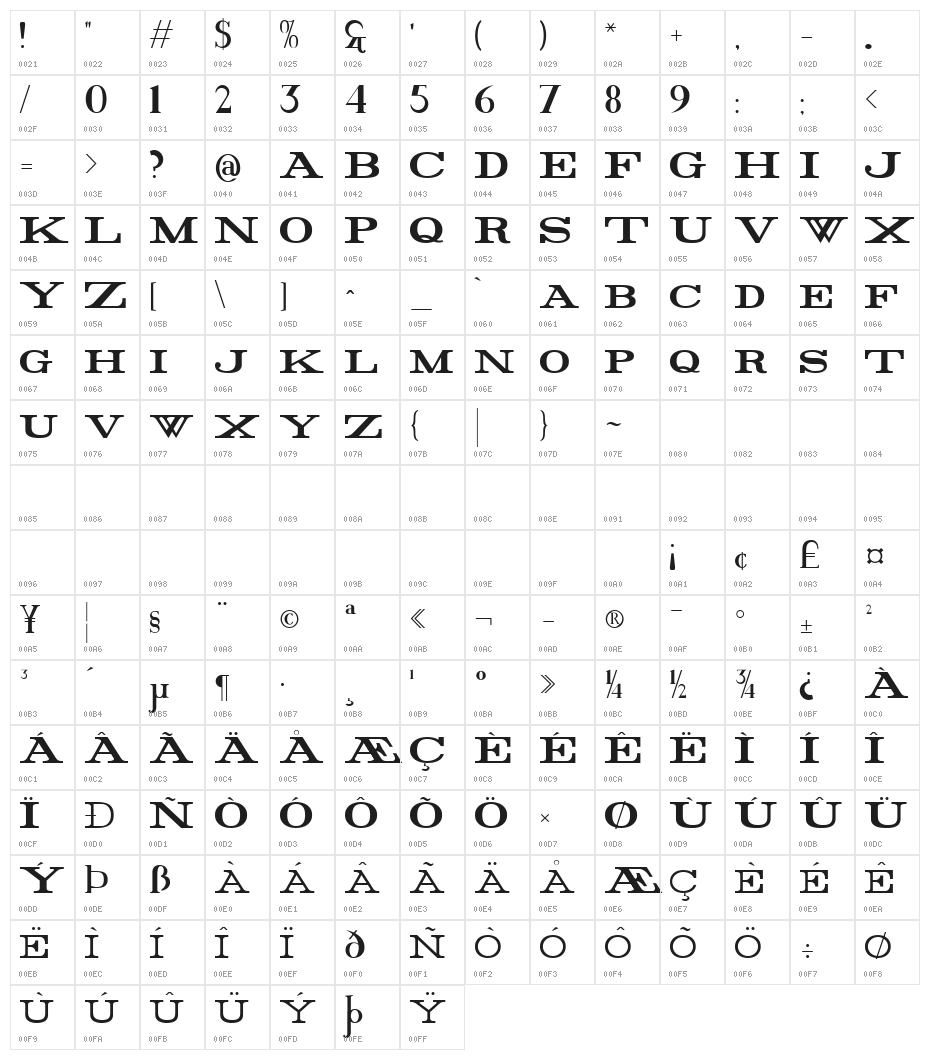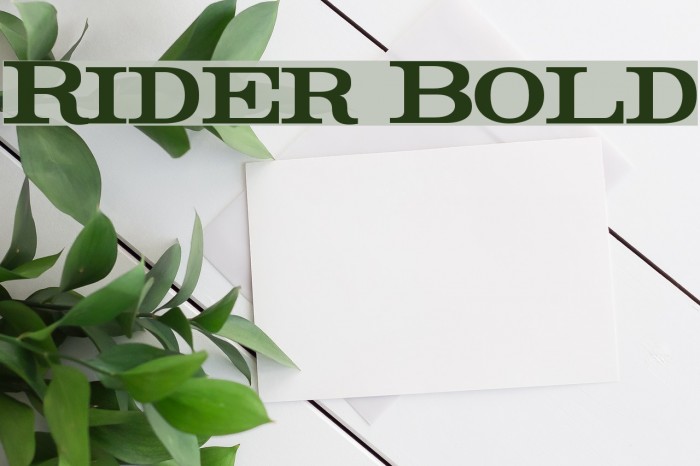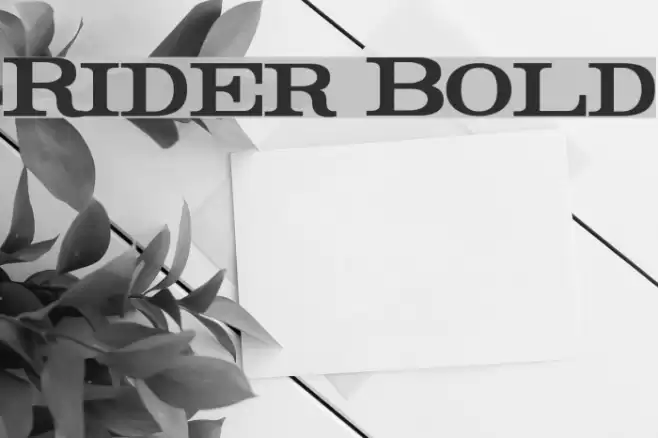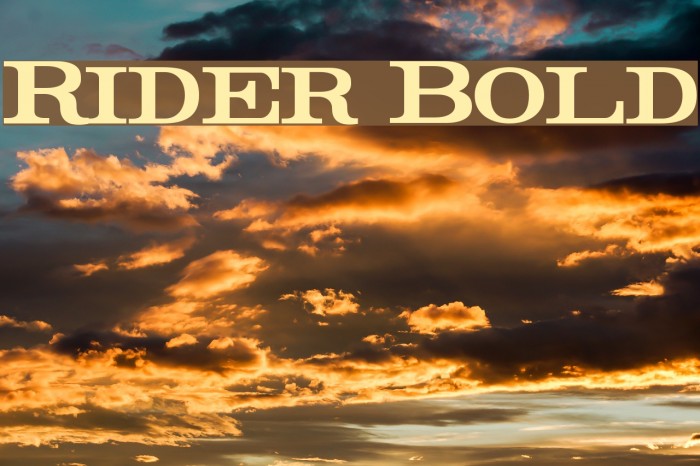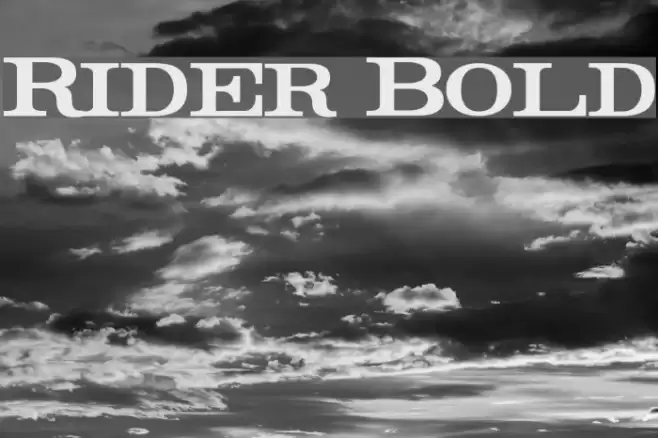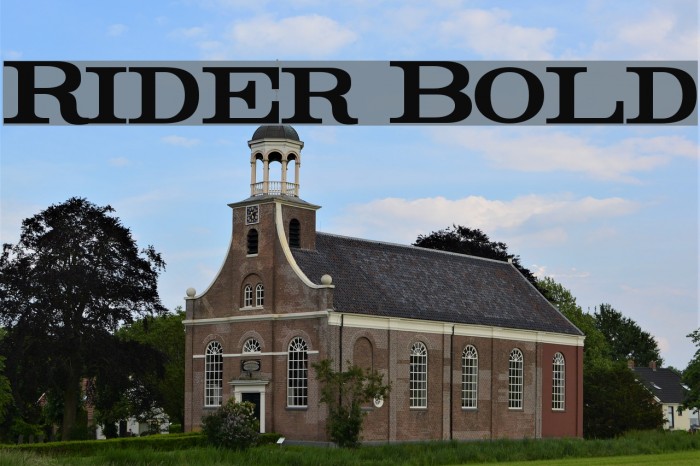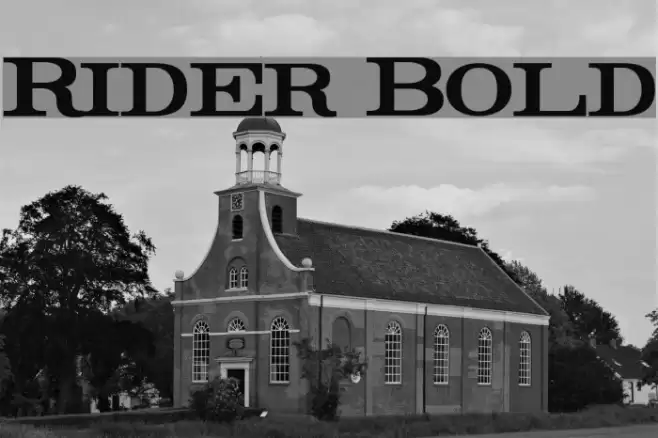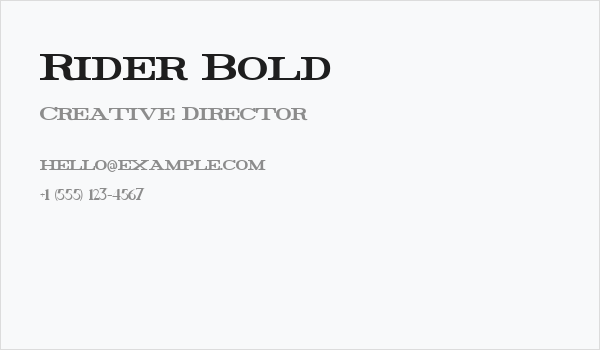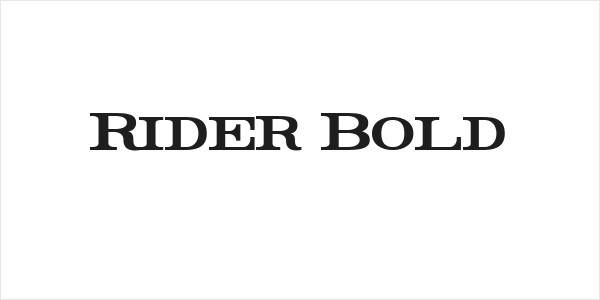
Rider Bold Font
Rider Bold Description
This font features a bold and striking serif design, characterized by its thick strokes and sharp, angular serifs. The uppercase letters are strong and commanding, with a classic elegance that is both timeless and versatile. The lowercase letters maintain a consistent weight, providing a harmonious balance across the typeface. The numerals are equally bold, ensuring readability and impact. Special characters are designed with the same attention to detail, making them suitable for a variety of applications. The overall appearance is both authoritative and refined, making it ideal for projects that require a strong visual presence.
| Use Case | Headlines, Logos, Editorial Design |
| Proposed Projects | Ideal for headlines, branding, editorial design, and any project requiring a bold, classic serif presence. |